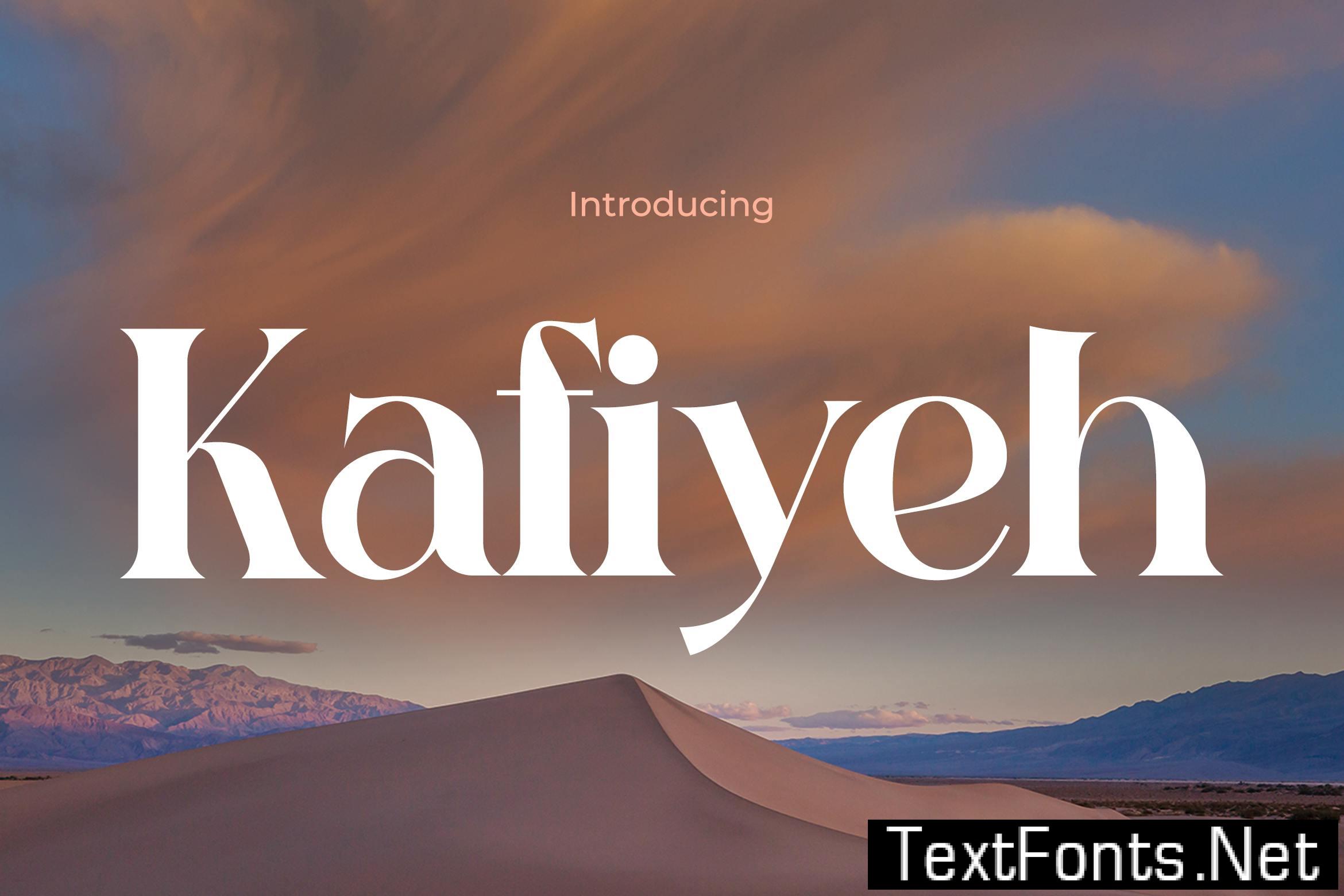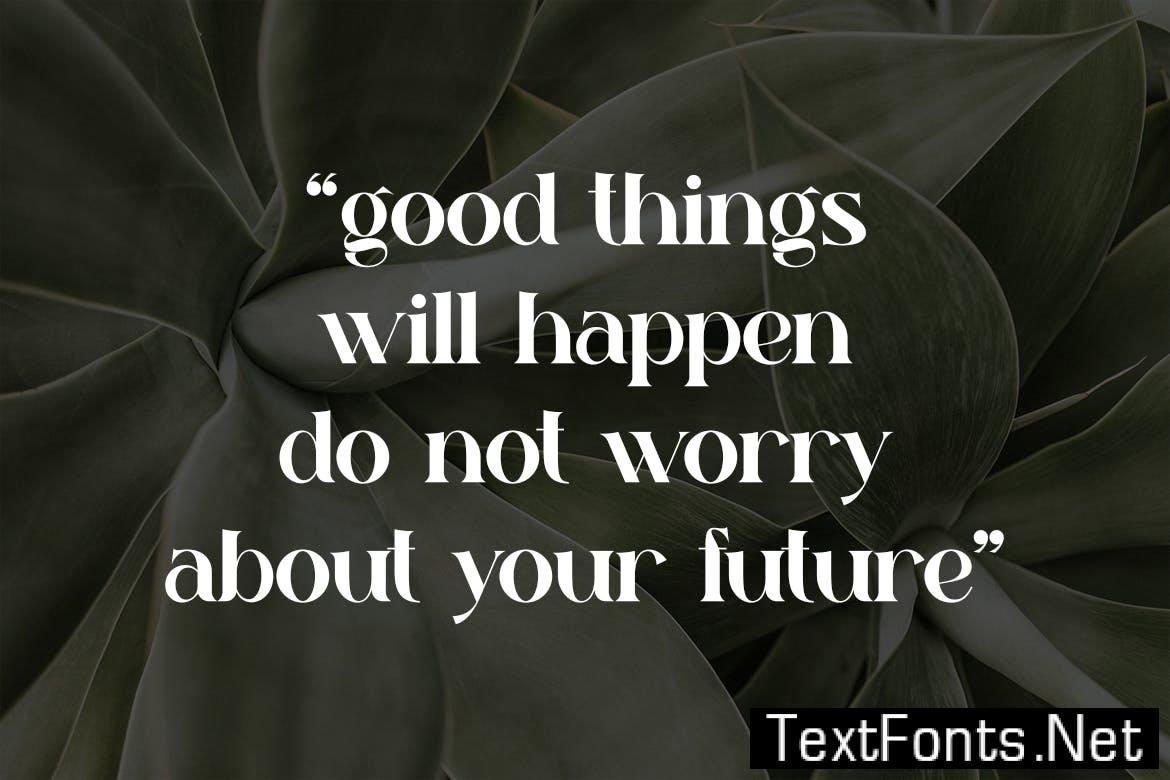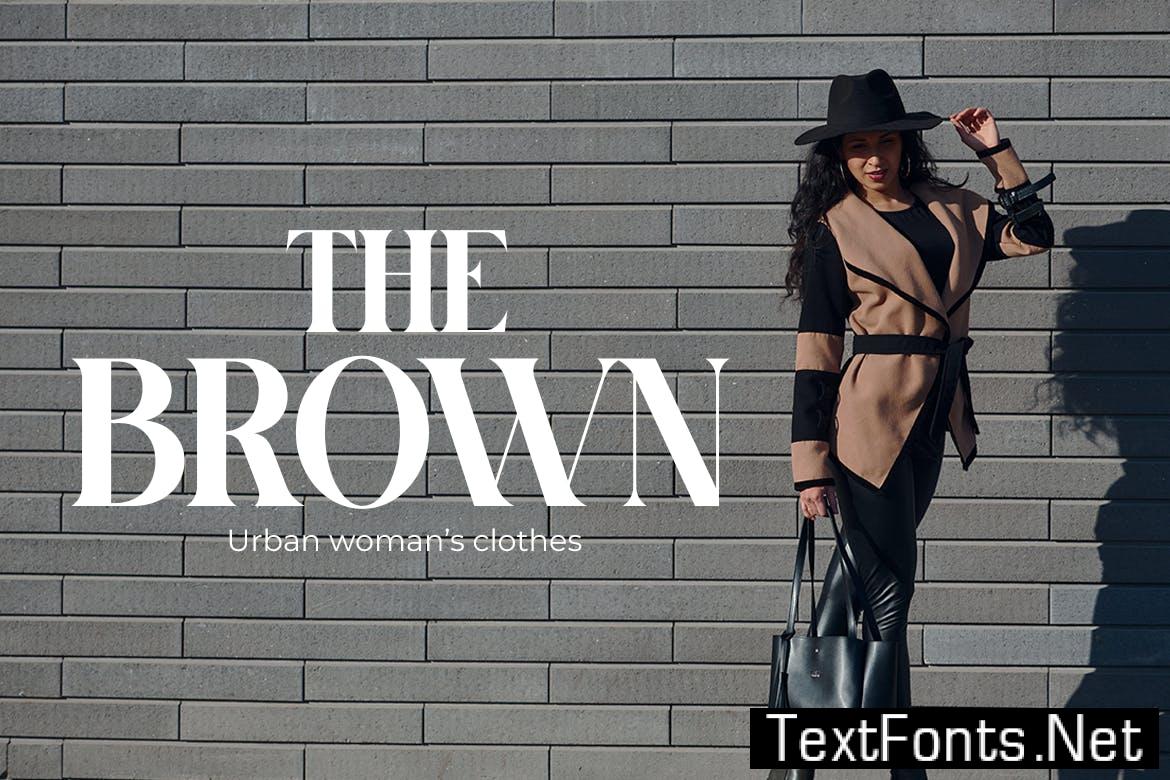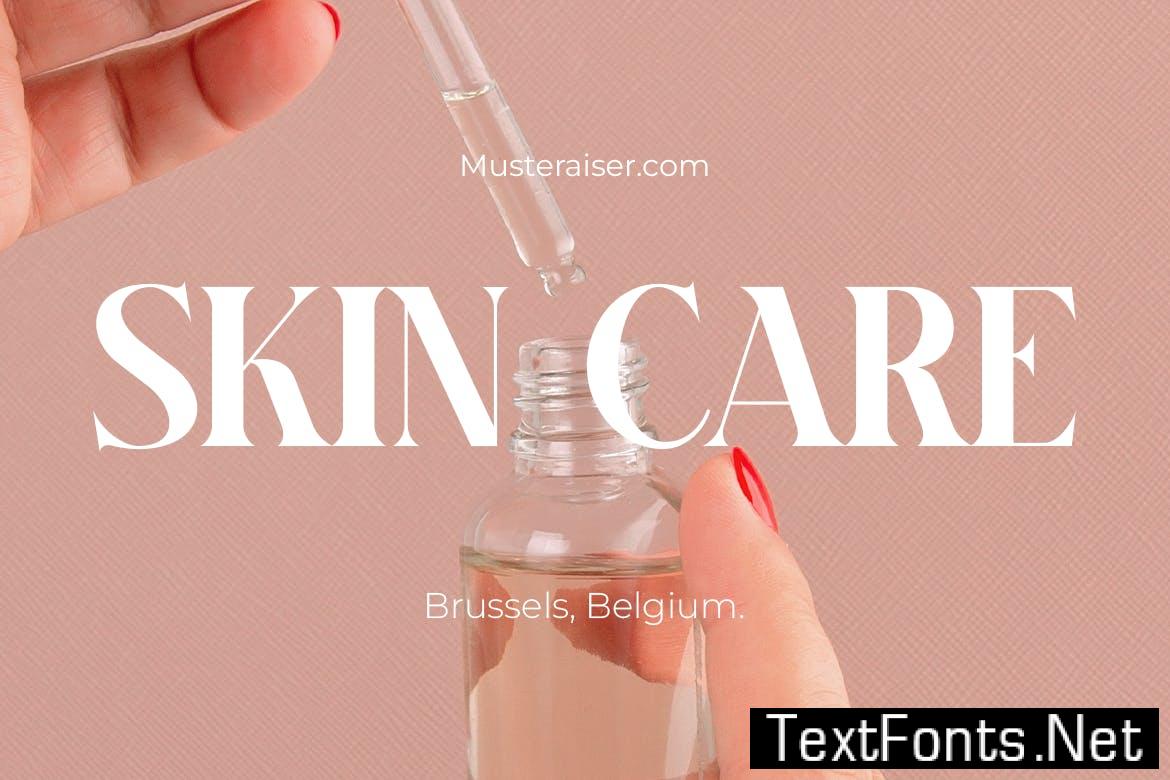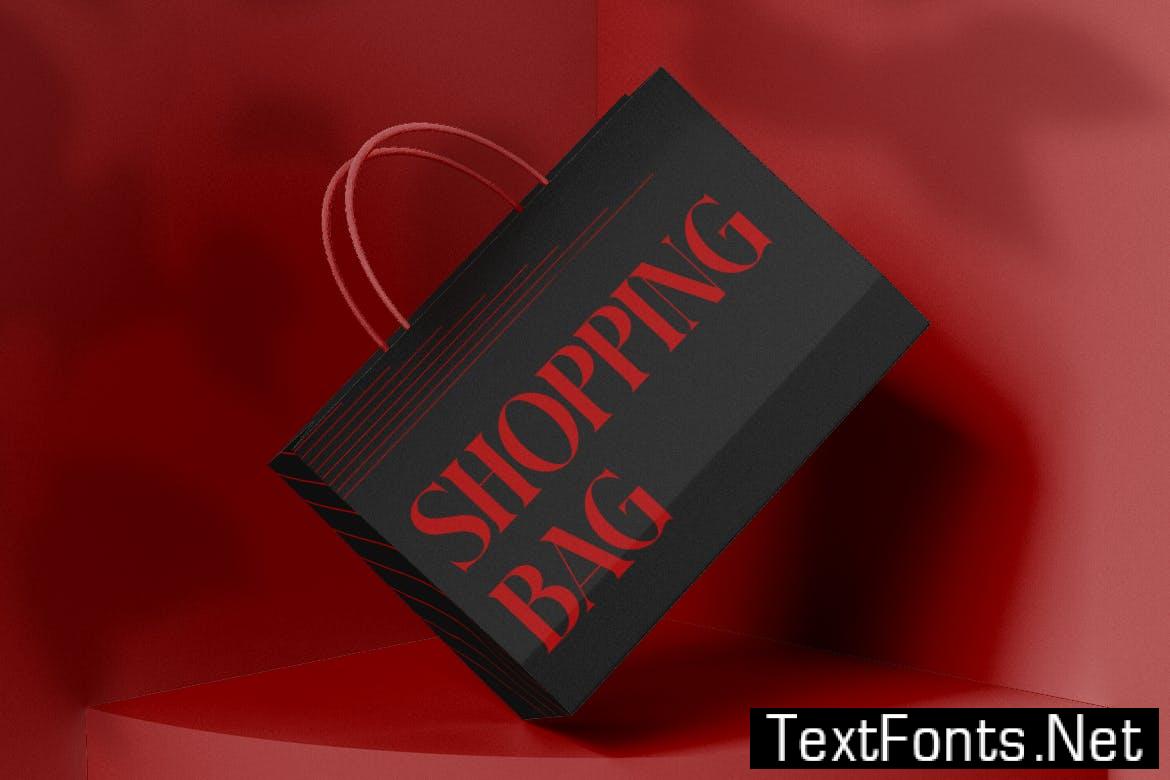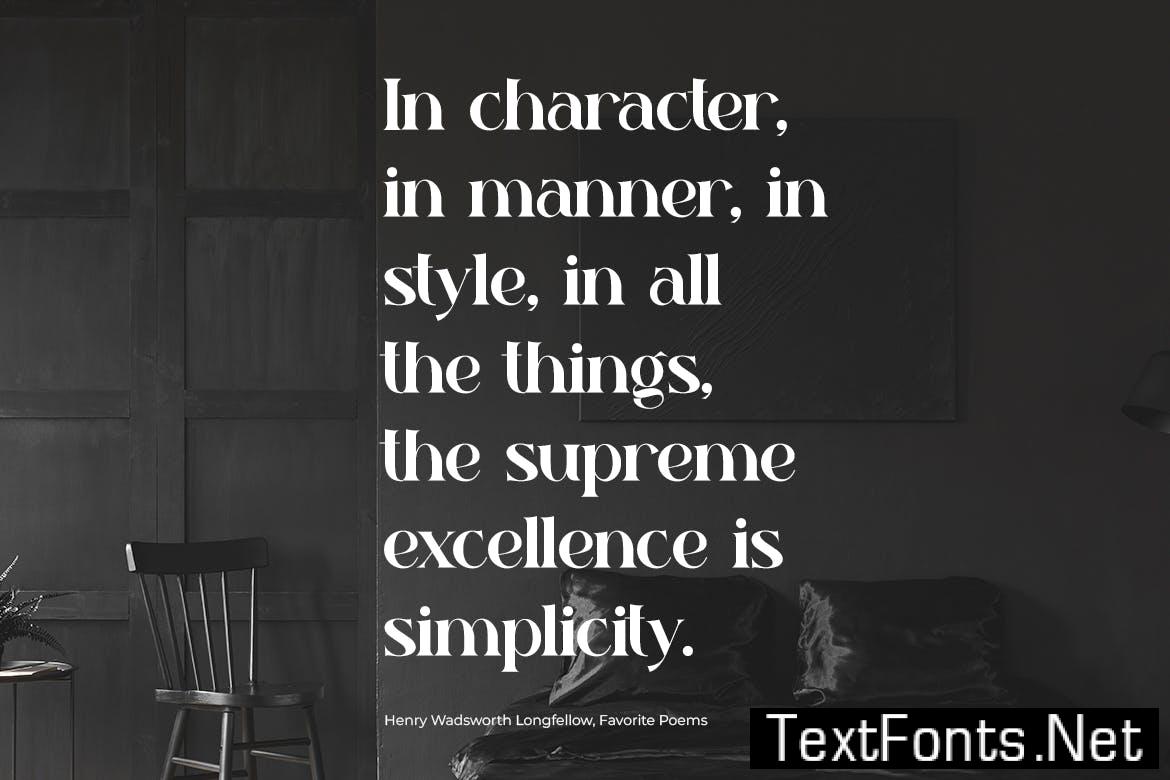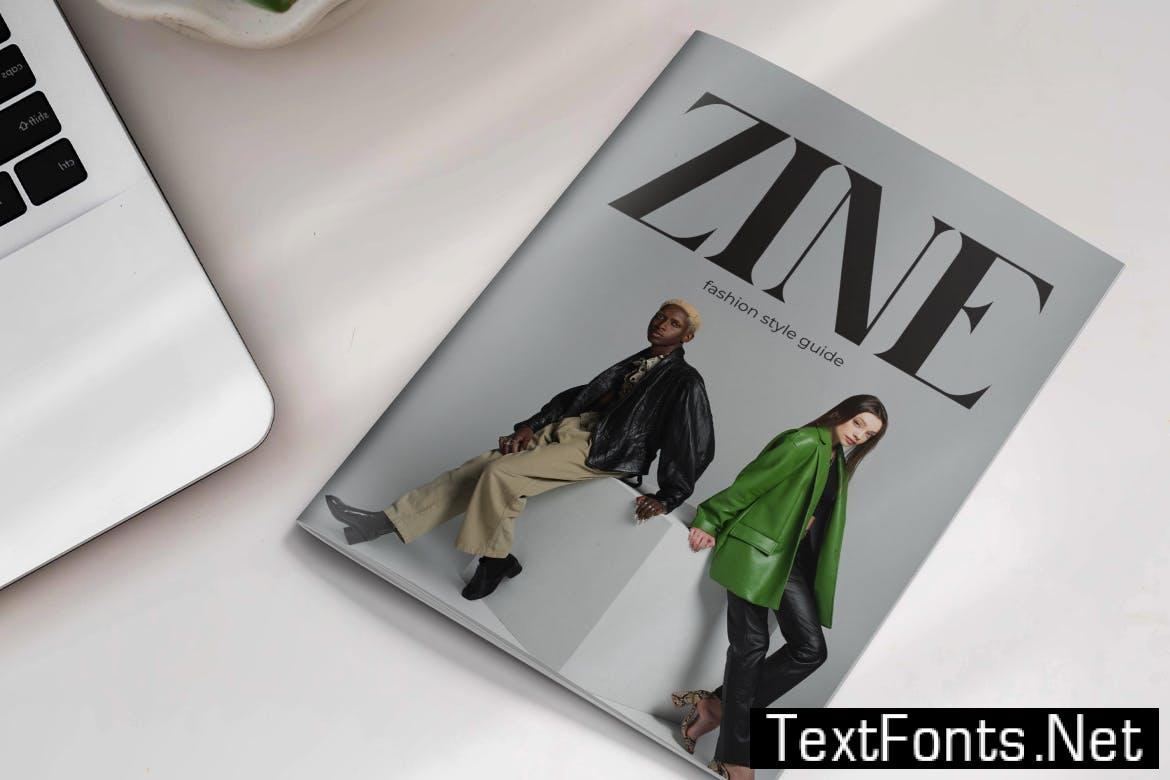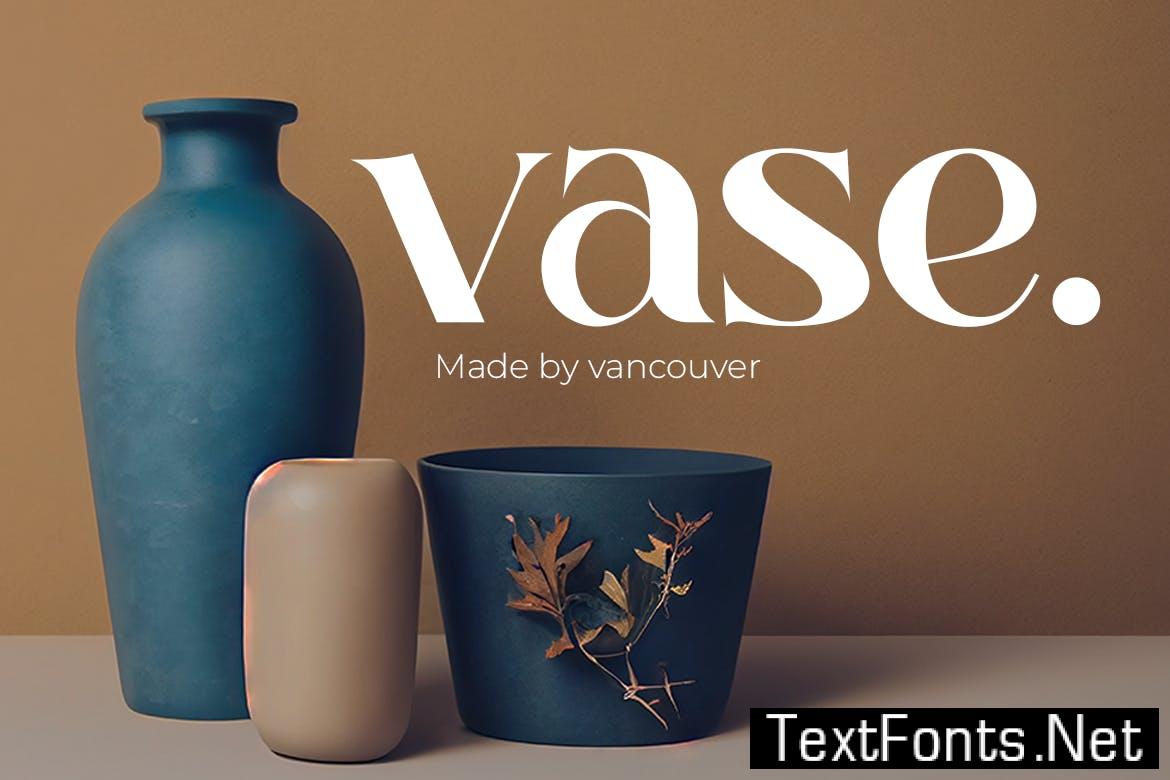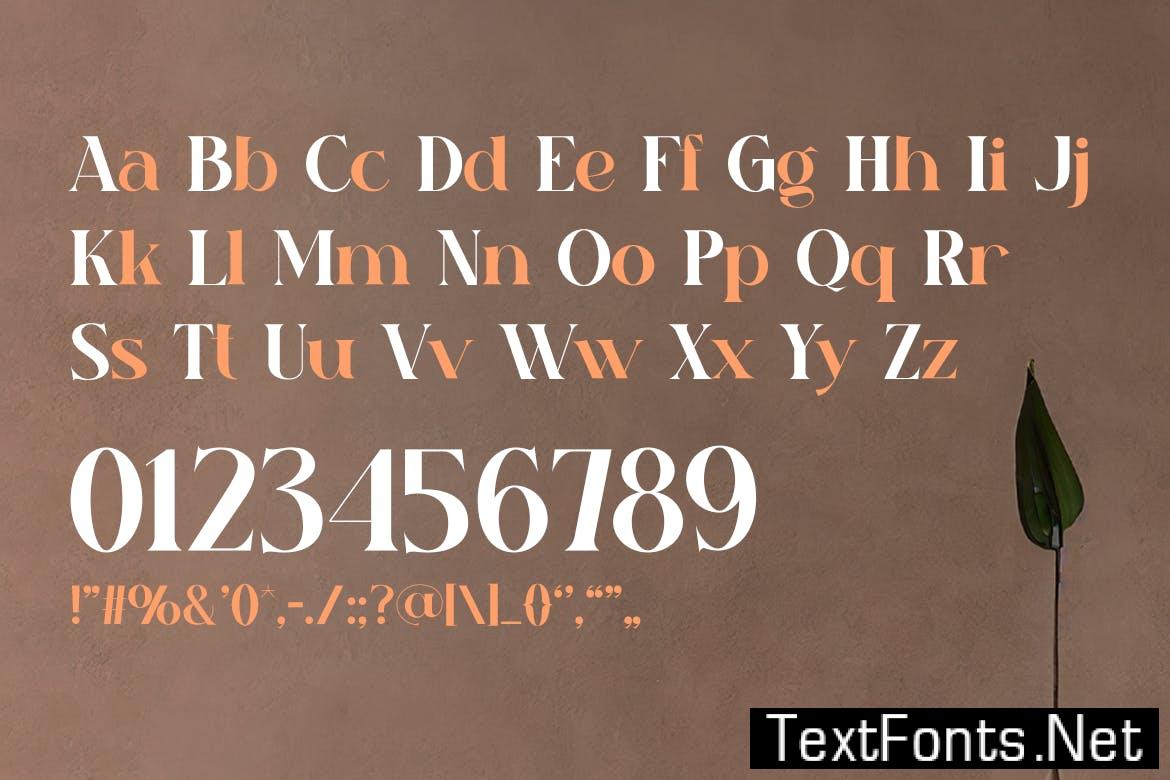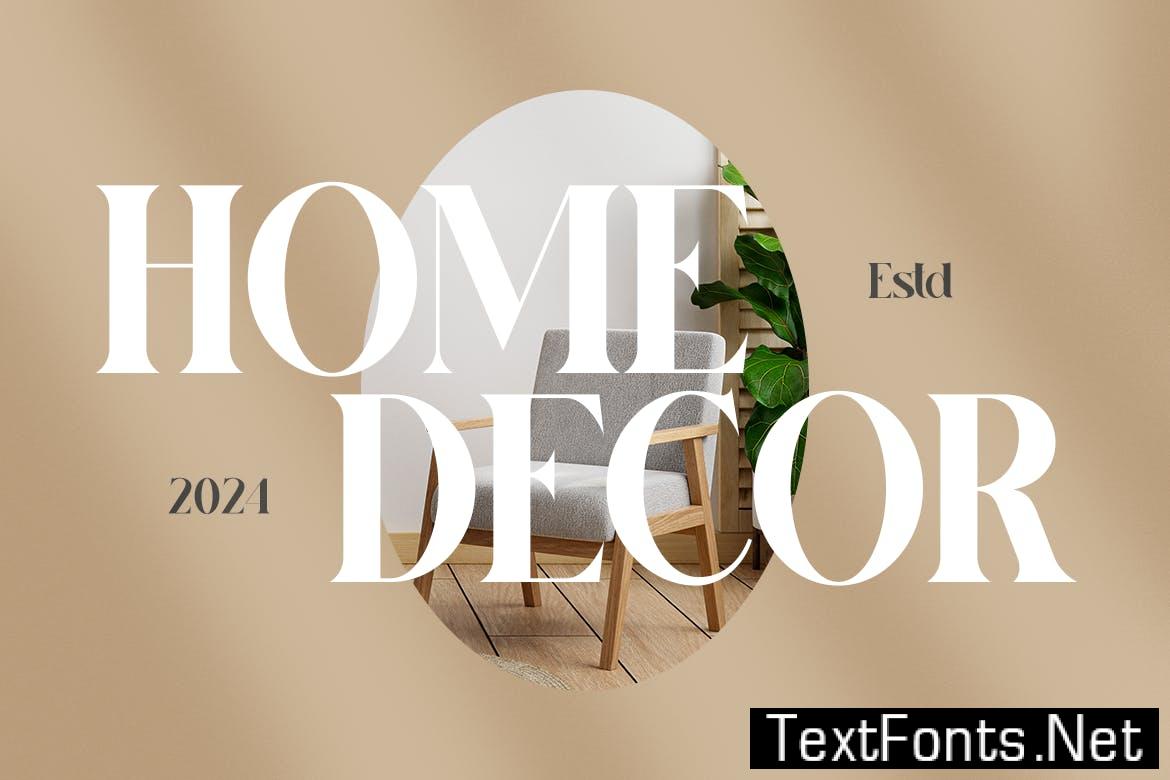
Kafiyeh – Elegance Modern Retro Font 4ABRCLW
Kafiyeh blends the timelessness of serif typography with the allure of retro style, enhanced by modern beauty and luxury. This font brings a touch of elegance to any medium, ideal for those seeking to infuse their projects with sophistication and a classic feel. Kafiyeh is perfect for creating standout logos, enriching quotes with its stylish contours, and crafting invitations that promise an air of exclusivity. Its refined presence enhances posters and greetings, while its luxury appeal transforms packaging and branding into statements of high-end design. For covers, events, headlines, and advertising, Kafiyeh ensures your messages not only capture attention but also convey a sense of lasting elegance.